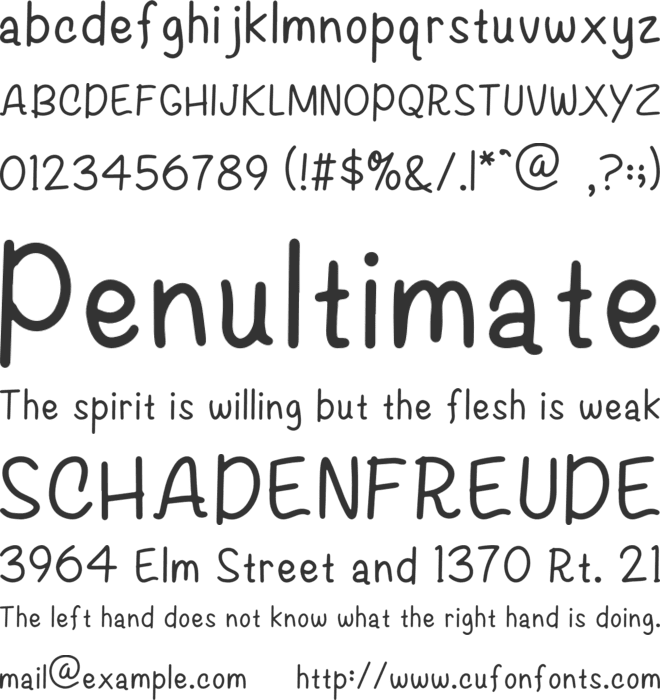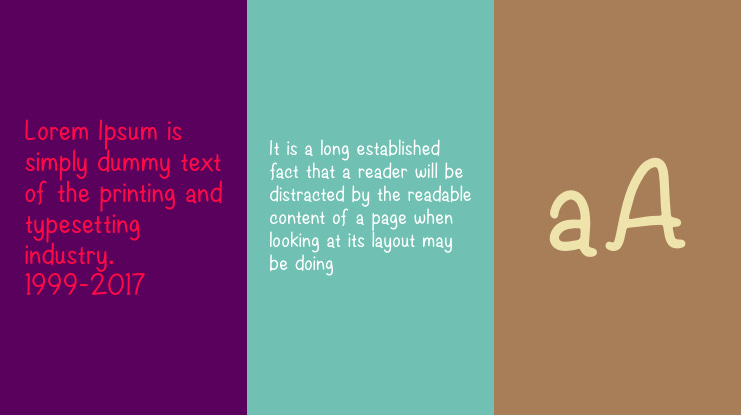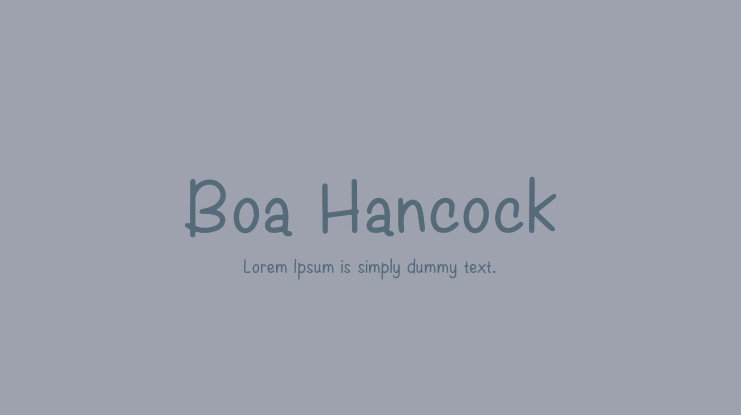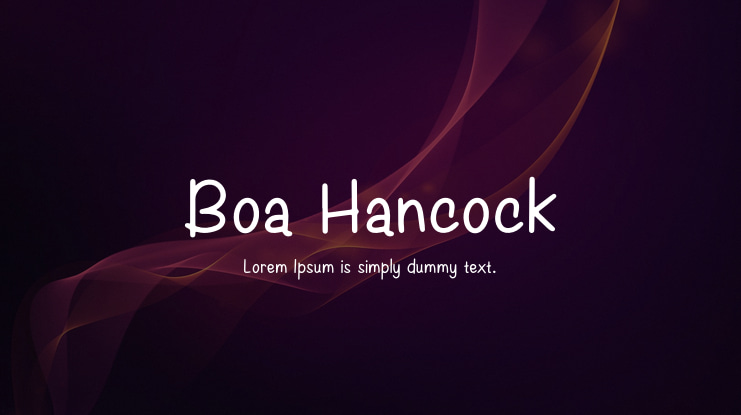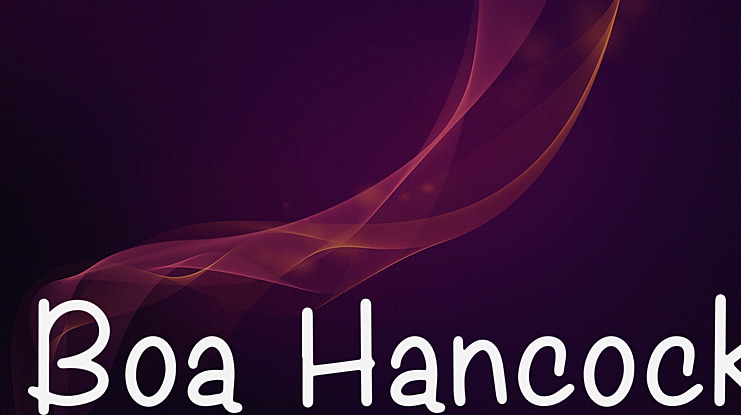
Boa Hancock Font
Boa Hancock is a cute handwritten font. Its sweet and full of life style makes this font a wonderful choice for brightening up your designs.